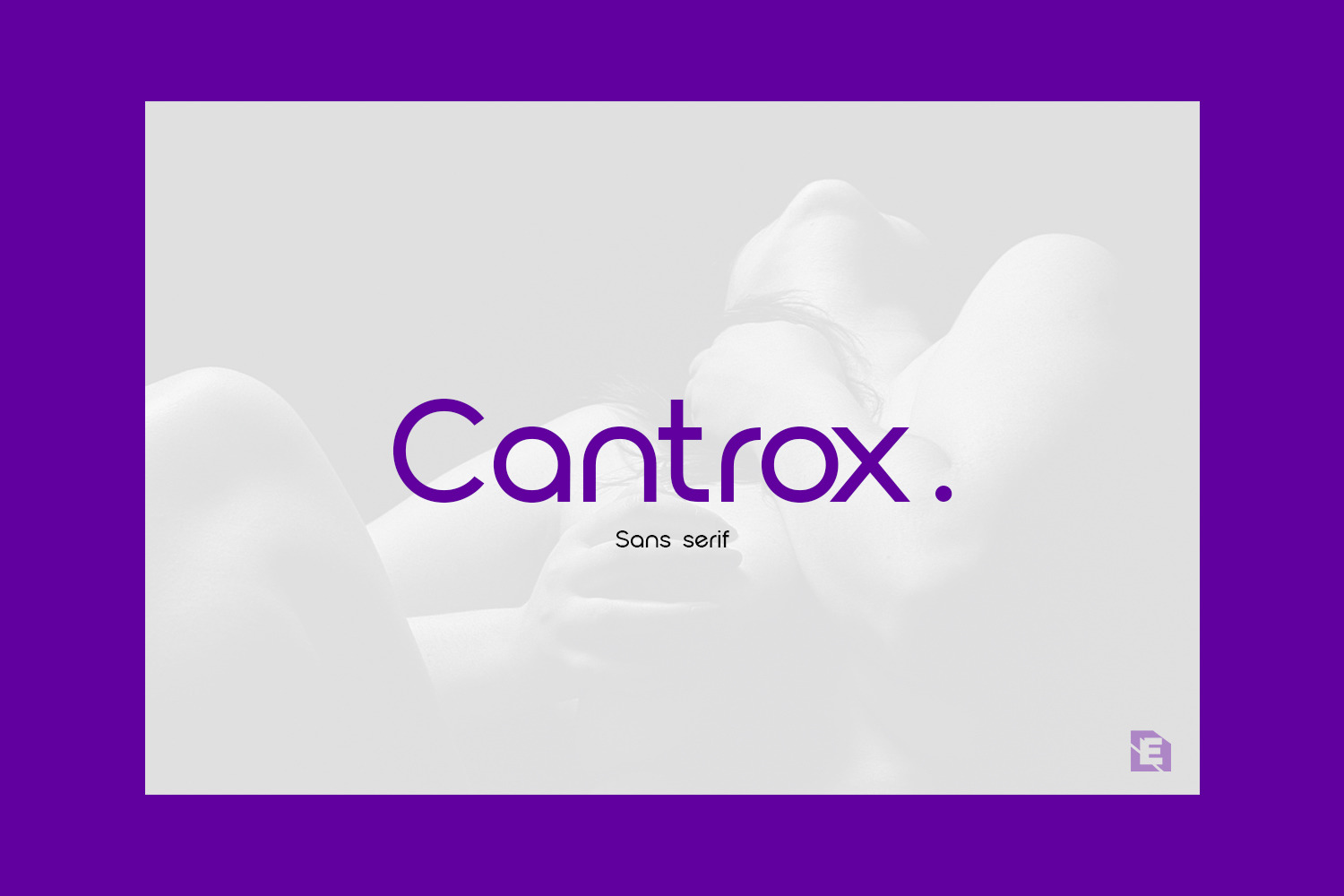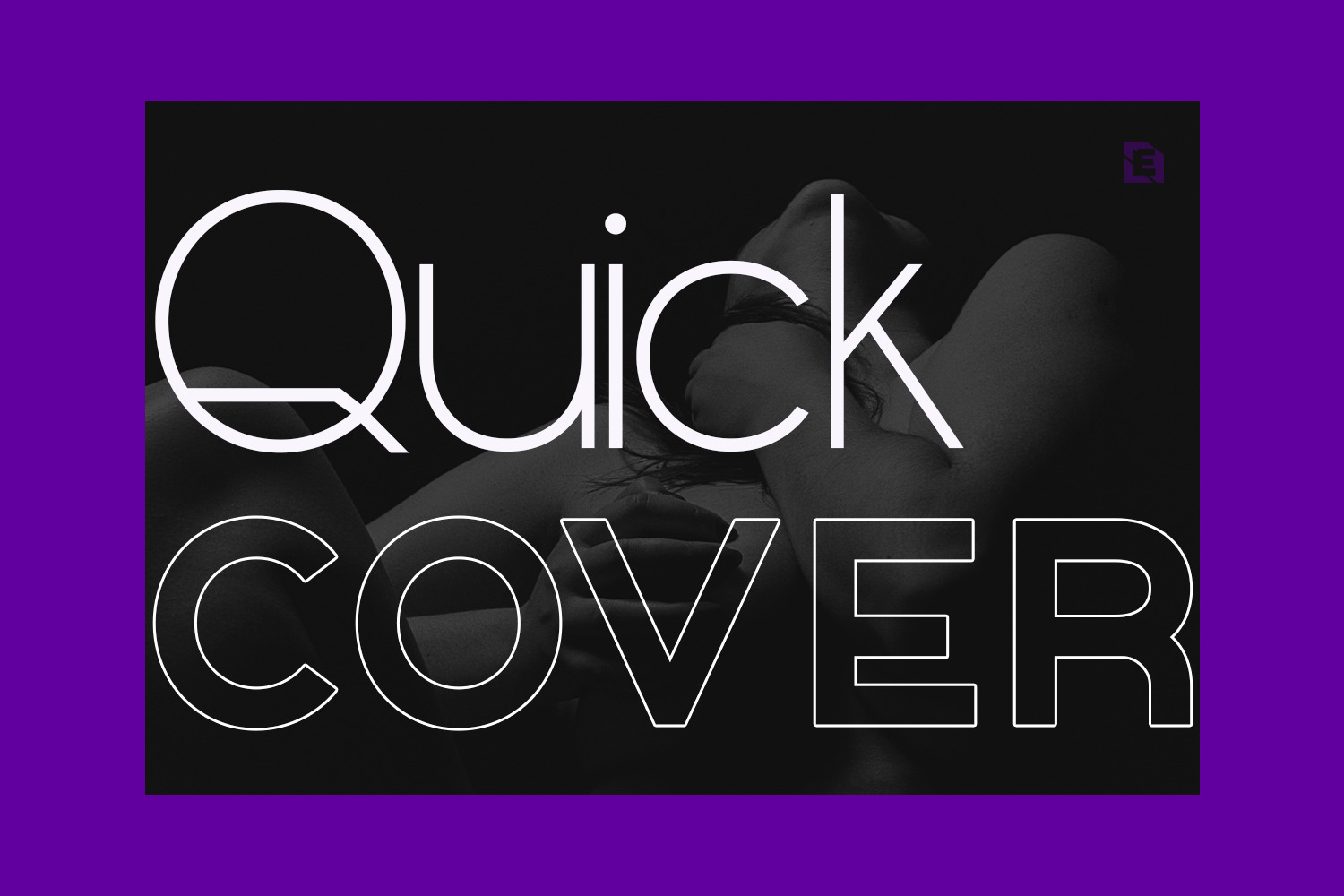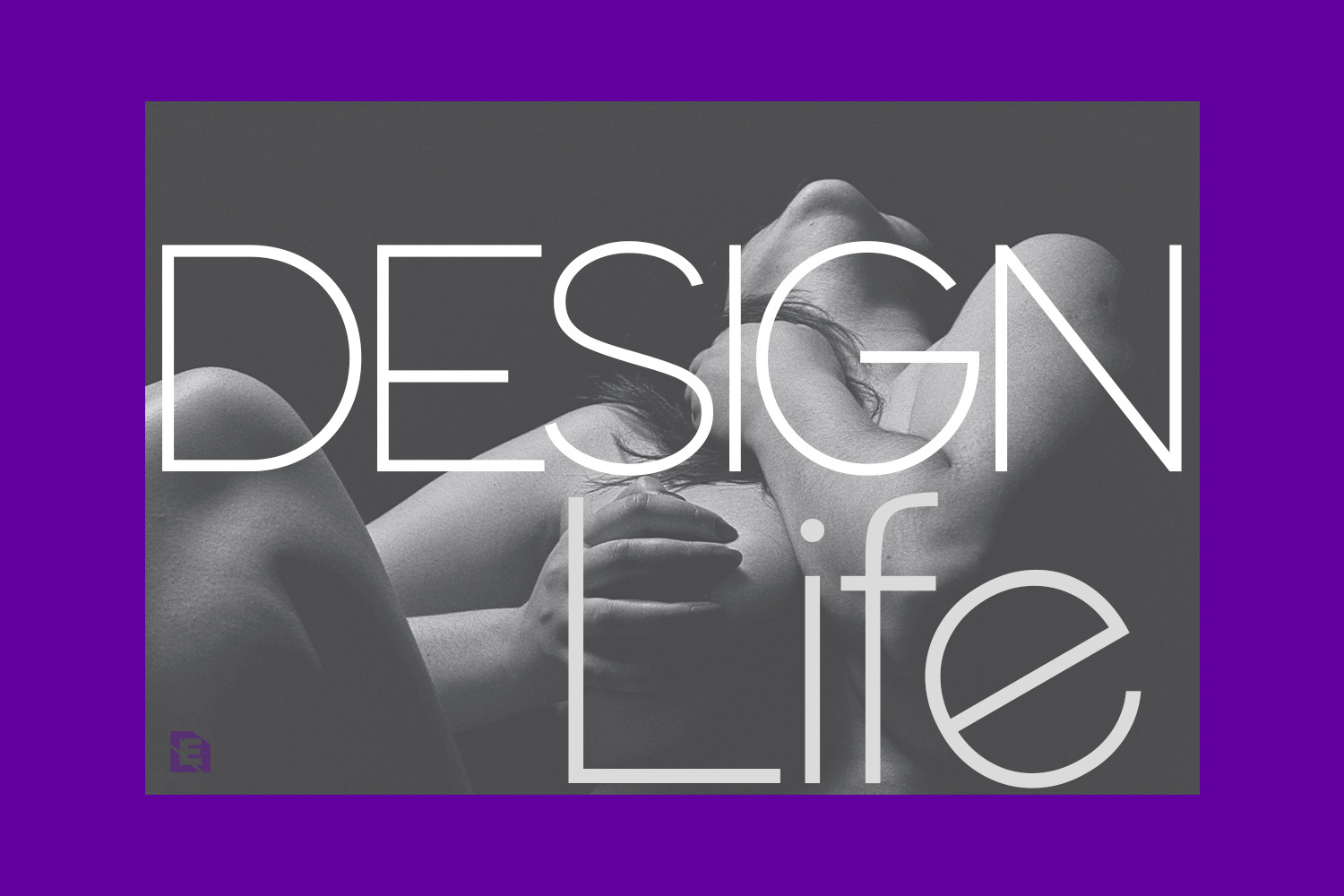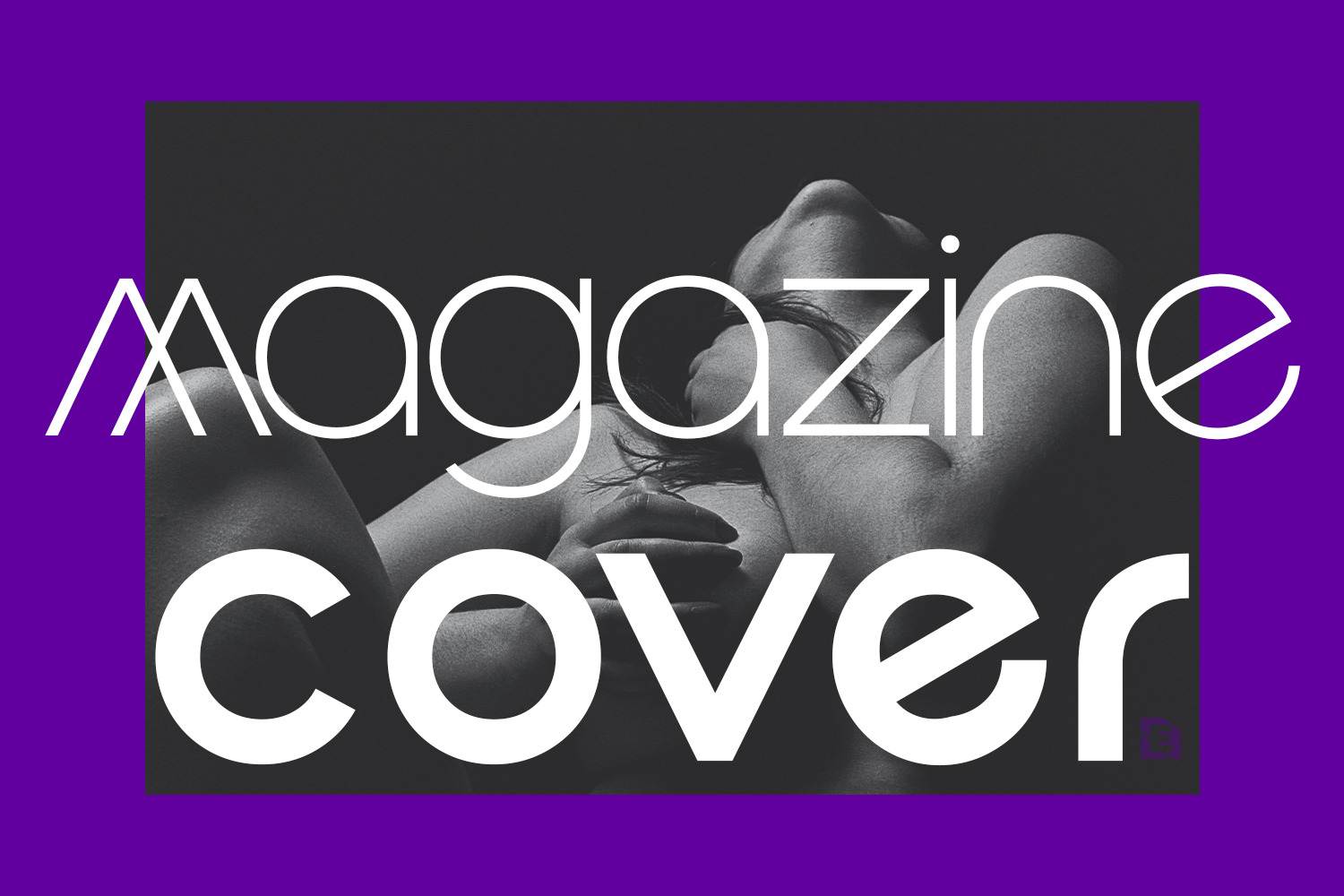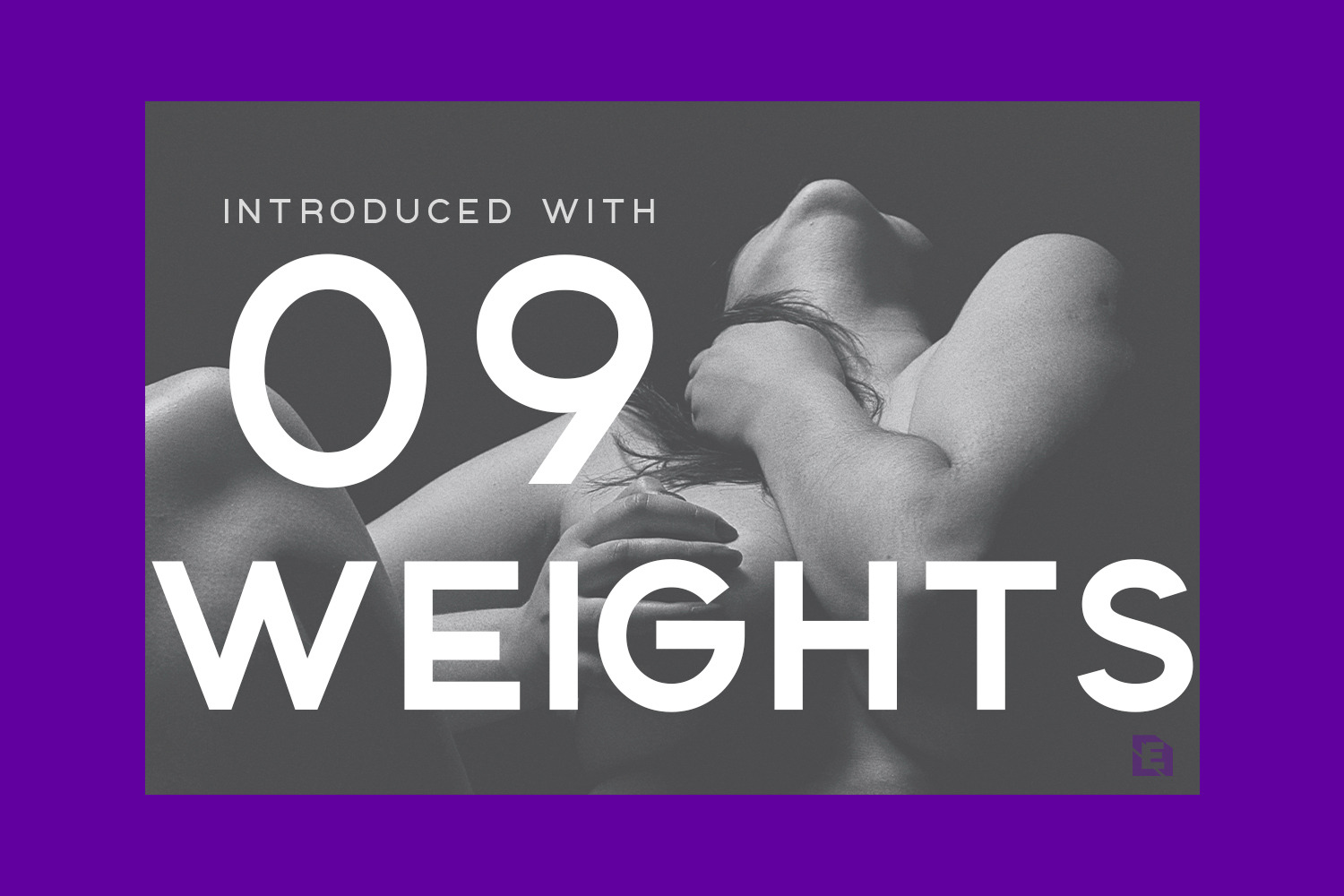
Cantrox Font
Cantrox Font is a modern sans serif font with 9 weights. Thin, Extra Light, Light, Regular, Medium, Semibold, Bold, extra-bold, and black. This stylish font includes all lowercase and uppercase letters, numbers, punctuation, and international letters. Total 300 above glyphs available.
Cantrox Font is perfect for fashion, branding, poster design, magazine cover, logo, headlines, and many more projects. It is a very versatile web font, work great in large as well as small size. It has a stunning character set, perfectly managed with well-spaced and kerning.